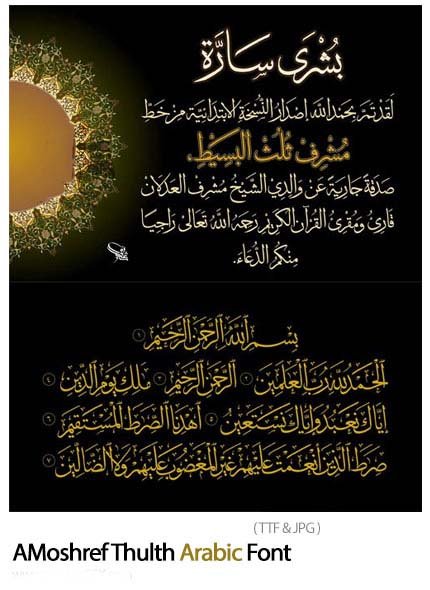
AMoshref Thulth Arabic Font
Musharraf Thulth brings the timeless elegance of traditional Thuluth calligraphy to digital design. This beautifully crafted font captures the graceful curves, dramatic flourishes, and artistic proportions of one of the most revered Arabic script styles, allowing you to create designs with authentic classical beauty.
Thuluth Calligraphic Style:
- Elegant, flowing letterforms inspired by classical Thuluth
- Dramatic curves and artistic flourishes
- Proper proportional relationships between letters
- Authentic calligraphic character with digital precision
- Graceful ascending and descending elements
Arabic Script:
- Complete Arabic character set
- Full support for diacritics and marks
- Proper character connections and positioning
- Traditional forms with contemporary usability
- Optimized for display sizes and special applications
- Titles & Headlines: Create dramatic, elegant statements
- Logos: Sophisticated brand identities with classical character
- Certificates: Formal, prestigious document design
- Invitations: Elegant event announcements
- Book Covers: Distinguished publication design
- Quranic Verses: Beautiful presentation of sacred text
- Religious Materials: Traditional Islamic content
- Signage: Elegant displays for cultural institutions
- Art Prints: Decorative calligraphic artwork
- Packaging: Premium product presentation
- Classical Beauty: Authentic Thuluth calligraphic style
- Elegant Design: Graceful, artistic letterforms
- Cultural Authenticity: Properly rendered traditional script
- Professional Quality: High-caliber font for serious projects
- Versatile Impact: Perfect for any project needing sophisticated Arabic typography
Key Features of Musharraf Thulth Font:
- Classical Thuluth calligraphic style
- Elegant, flowing letterforms with artistic flourishes
- Complete Arabic character set
- Perfect for sophisticated, traditional projects
- Graphic designers seeking classical Arabic typography
- Logo and brand identity creators
- Certificate and document designers
- Wedding and event stationery designers
- Islamic content creators
- Publishers of Arabic books and materials
- Anyone needing elegant, traditional Arabic fonts